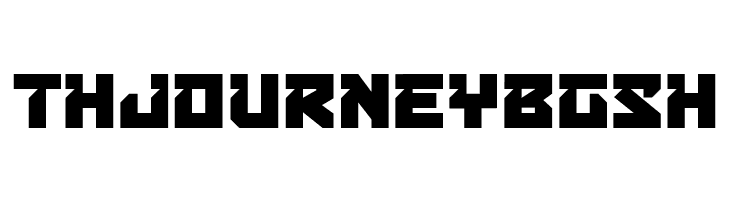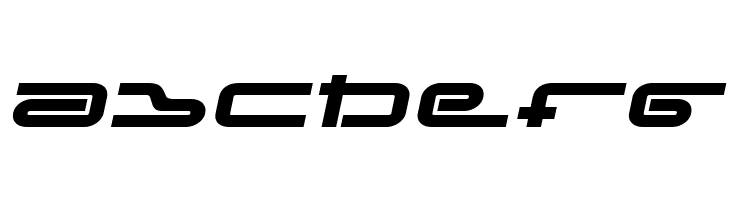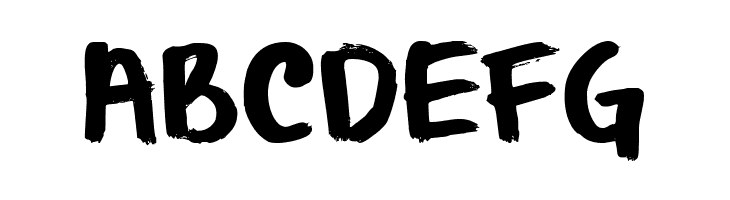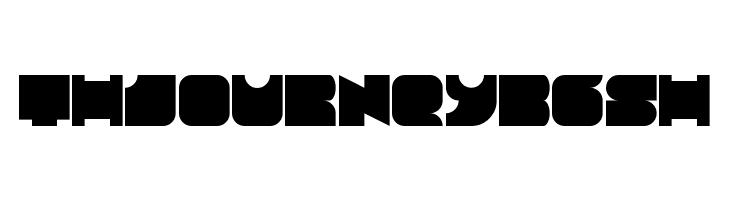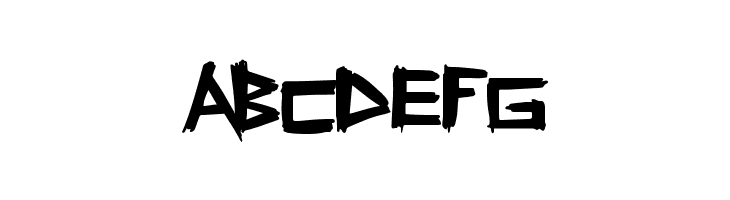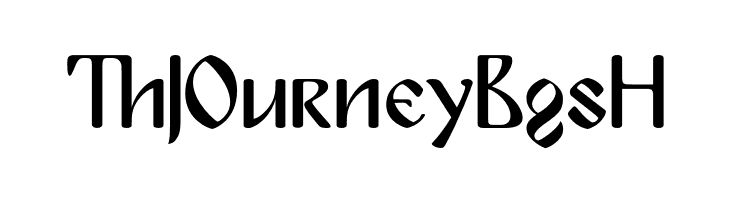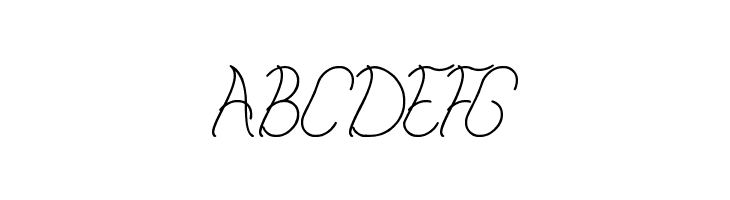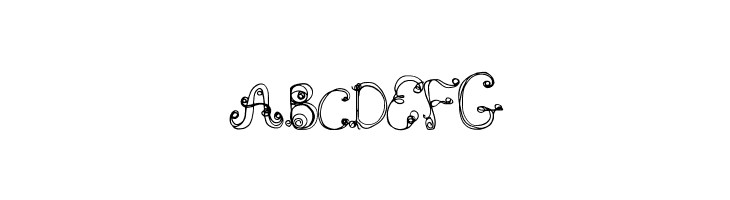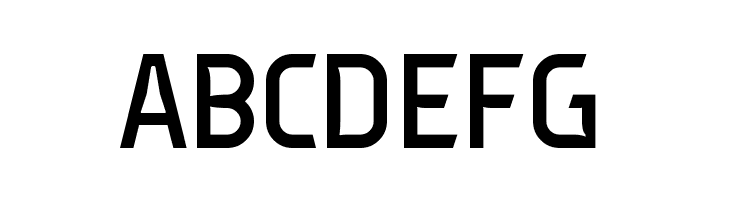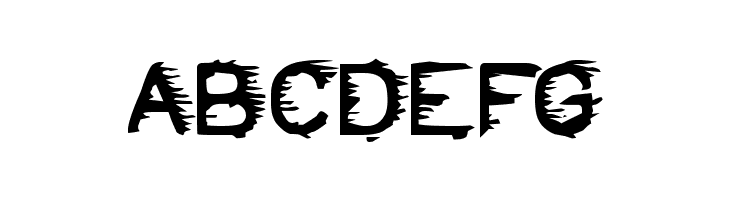
A classic serif typeface with elegant, traditional letterforms and moderate stroke contrast.
A bold, classic serif font with strong, authoritative characters.
A bold, italic serif font with a classic and elegant style.
An elegant serif font with an italic slant, offering a classic and sophisticated look.
A bold, jagged font with an icy, dynamic appearance.
A bold, jagged font with an icy, distressed appearance.
A bold, graffiti-style font with angular, dynamic shapes.
An elegant, flowing script font with thin, delicate lines and graceful curves.
A whimsical, decorative font with intricate swirls and playful loops.
A bold, geometric font with a playful, modern style and thick outlines.
A bold, geometric font with a three-dimensional outline and futuristic style.
A bold, graffiti-inspired font with sharp, angular lines and dynamic energy.
A bold, varsity-style font with a textured, dotted interior and strong outlines.
A bold, playful handwritten font with dynamic strokes and a whimsical appearance.
A bold, modern font with a geometric and angular design.
A bold, rounded font with a futuristic and robotic aesthetic.
A tall, narrow, hand-drawn font with a playful and artistic style.
An edgy, distressed font with jagged, irregular edges and a bold appearance.
A whimsical, decorative font with swirls and heart motifs.
A bold, graffiti-inspired font with a dynamic, street art style.
A bold, hand-painted brush script with dynamic, expressive strokes.
A playful, snowflake-adorned font with bold, whimsical letterforms.
A playful, icy-themed font with bold, rounded letters adorned with icicle drips.
A dynamic, handwritten font with sharp, angular strokes and a lively appearance.
A futuristic, geometric font with bold, angular characters and a modern aesthetic.
A playful, hand-drawn font with rounded edges and a whimsical style.
A playful, hand-drawn font with bold, irregular characters and a whimsical style.
A bold, decorative font with blackletter influences and a modern twist.